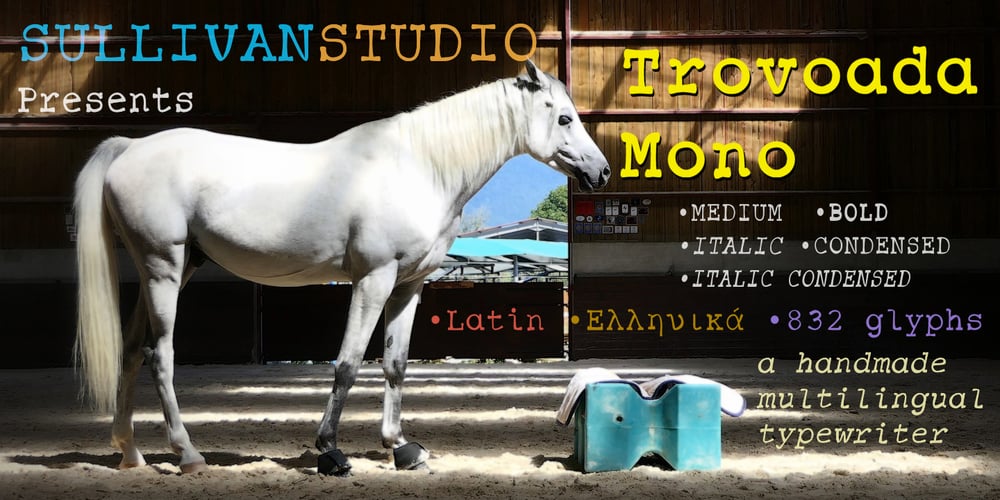
Trovoada Mono Font Family was designed by Ariel Sullivan and published by SullivanStudio. Trovoada Mono contains 5 styles and family package options. Trovoada Mono is a monospaced font for use in print (but also looks great on display). Hand-drawing glyph by glyph, my intention was to get that old manual typewriter look, with uneven inks, but with a totally up-to-date, emotional and admittedly humorous attitude. Trovoada Mono borrows from classics like Courier and Letter Gothic, reinventing serifs here and there. The result is a font that is both familiar and unusual.As I love Greek typography, I made sure to include a full polytonic alphabet, in the same vintage spirit: the text looks very legible and matches the Latin characters.The font has no kerning, obviously, and no ligatures (this is a typewriter, my friend!), but it has important OpenType features: fractions, subscripts/superscripts, slashed zero and stylistic alternatives for some characters.The italics are 11 degrees, which brings a strong personality. Some characters have true italics, giving the text an overall texture different from the upright type.All that is missing is that nervous typewriter noise. Enjoy!